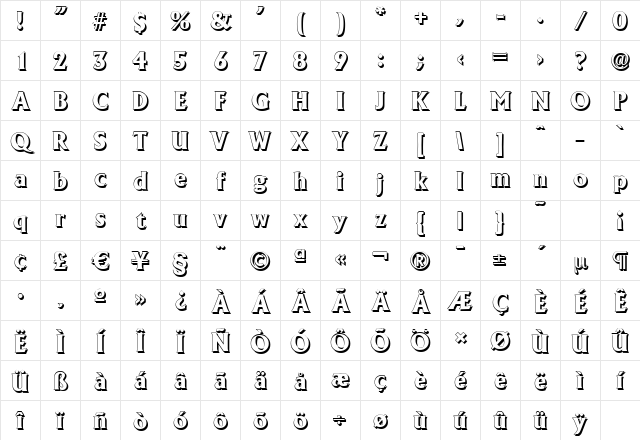
Design Context for AdelonShadow-Xbold
AdelonShadow-Xbold is built around its visual character rather than neutral utility - its distinctive forms are designed to make an impression at display sizes. Its bold stroke weight gives it real presence on the page.
Font Pairing: Pair with a clean neutral sans-serif for body copy to let AdelonShadow-Xbold's character lead without overwhelming the composition.
Pro Tip: Use AdelonShadow-Xbold exclusively at display sizes - it was designed to be seen, not read at length. Let a neutral companion handle body copy.